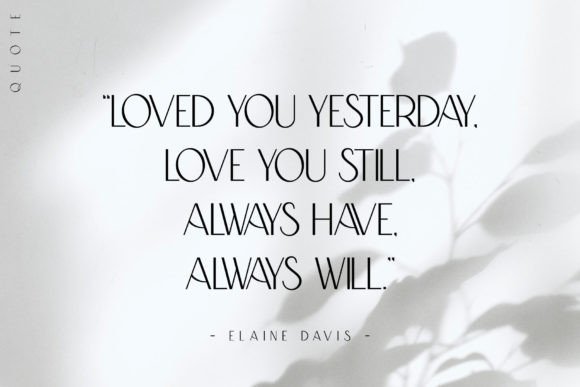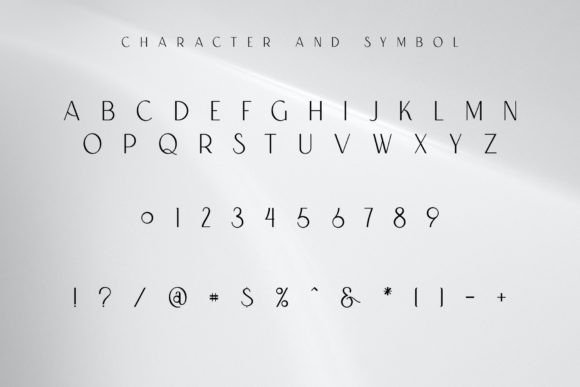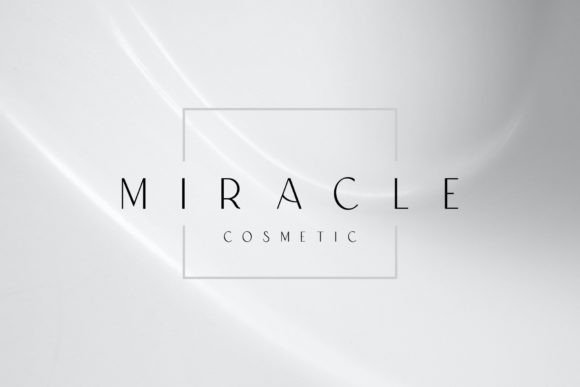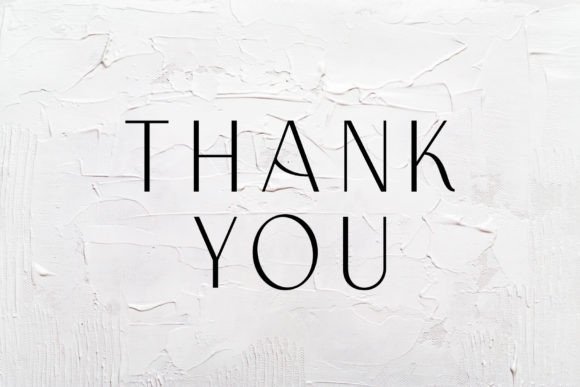
Aerial Chain Font: Elevate Your Designs with a Modern Sans-Serif Favorite
In the world of typography, a font can make or break a design. When it comes to creating visually stunning and contemporary projects, selecting the right font is crucial. This is where Aerial Chain comes into play – a modern and stylish sans-serif font that is masterfully crafted to become a true favorite among designers and crafters alike. With its fresh and clean aesthetic, Aerial Chain is perfect for any design you wish to create, allowing you to add a touch of sophistication and make your projects truly outstanding.
The Essence of Aerial Chain
Aerial Chain is not just another font; it’s an experience. Its modern sans-serif design offers a clean slate that can be molded into various styles, making it incredibly versatile. Whether you’re working on a branding project, a website, a print design, or any other creative endeavor, Aerial Chain provides the perfect blend of elegance and simplicity. Its letters are designed to be effortlessly readable, ensuring that your message is conveyed clearly and effectively, no matter the medium.
Why Choose Aerial Chain?
There are numerous reasons why Aerial Chain stands out in the vast sea of fonts available today. Here are a few key advantages:
- Versatility: Aerial Chain’s clean and simple design makes it suitable for a wide range of projects. From corporate branding to personal crafts, it adapts seamlessly.
- Legibility: The font’s excellent readability ensures that your text is easily understood by your audience, which is vital for effective communication.
- Aesthetic Appeal: With its modern and stylish look, Aerial Chain adds a touch of sophistication to any design, making it more engaging and visually appealing.
- Easy to Pair: Aerial Chain can be easily paired with other fonts to create a unique and harmonious design. Its neutrality makes it an excellent choice for both headings and body text.
Applications of Aerial Chain
The applications of Aerial Chain are vast and varied. Here are some popular uses:
- Branding: Use Aerial Chain to create a strong and modern brand identity. Its clean lines and stylish look make it perfect for logos, business cards, and letterheads.
- Web Design: Enhance your website’s typography with Aerial Chain. Its readability and aesthetic appeal make it an excellent choice for headings, paragraphs, and even UI elements.
- Print Design: Whether you’re working on brochures, posters, or flyers, Aerial Chain can add a contemporary touch to your print materials.
- Crafting and DIY Projects: For crafters and DIY enthusiasts, Aerial Chain can be used in various projects, from handmade cards to custom signage, adding a professional and polished look.
How to Make the Most of Aerial Chain
To truly make the most of Aerial Chain, consider the following tips:
- Experiment with Sizes: Play around with different font sizes to create visual hierarchy and emphasize key points.
- Color Matters: Choose colors that complement your design and enhance the readability of Aerial Chain.
- Mix and Match: Don’t be afraid to pair Aerial Chain with other fonts to add depth and personality to your design.
- Consider Line Spacing: Ensure proper line spacing to improve readability and make your text more inviting.
Aerial Chain is more than just a font – it’s a design essential. Its modern sans-serif style, versatility, and aesthetic appeal make it a valuable addition to any designer’s toolkit. Whether you’re a professional designer or a crafting enthusiast, Aerial Chain has the potential to elevate your projects and make them truly stand out. With its wide range of applications and easy usability, it’s an excellent choice for anyone looking to add a touch of sophistication and modernity to their designs.